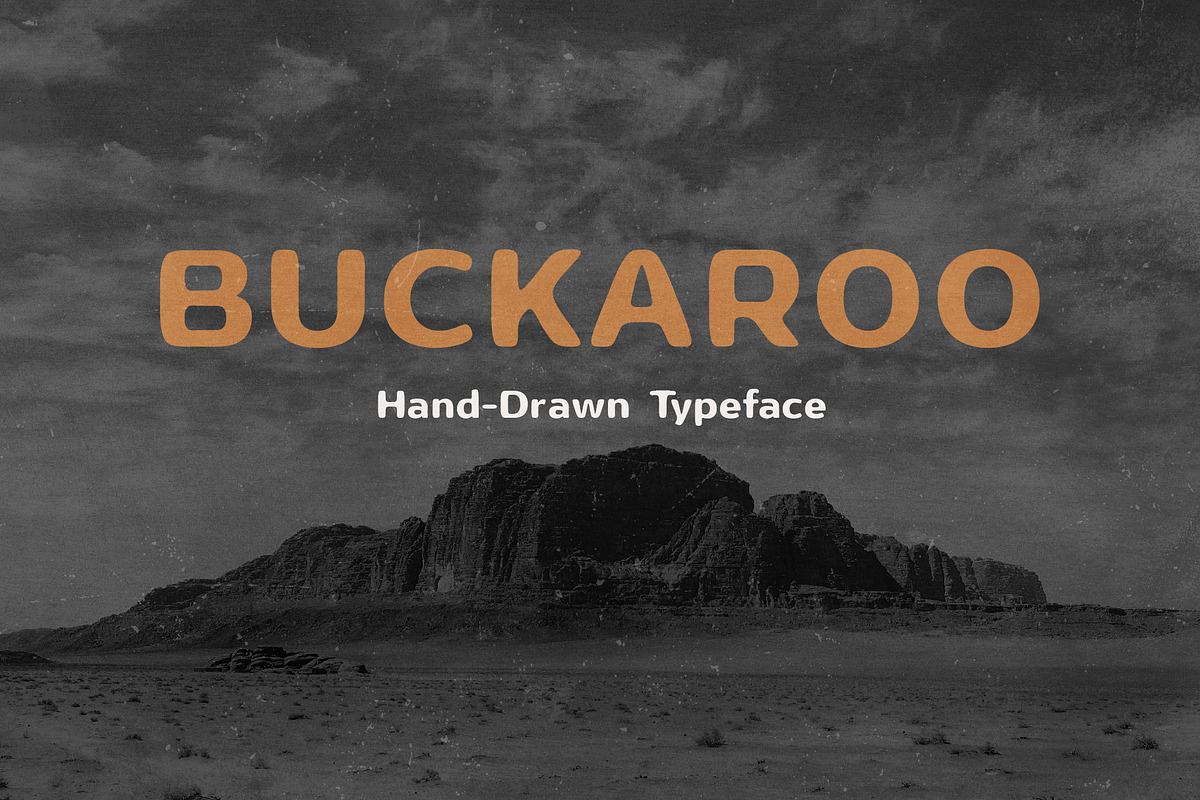
Buckaroo - Desert Typeface Free Download
Buckaroo - Desert Typeface Free Download is a rugged, Western-inspired font that captures the spirit of the desert frontier. With bold letterforms, vintage curves, and a touch of grit, Buckaroo is perfect for cowboy-themed branding, saloon-style signage, rustic apparel, rodeo posters, and outdoor adventure logos. It brings an authentic Wild West vibe that feels both nostalgic and adventurous.
The font’s strong character and classic Americana aesthetic make it ideal for designs that need to stand tall and bold—whether you're working on print materials or digital content. It’s built to make a lasting impression with style and attitude.